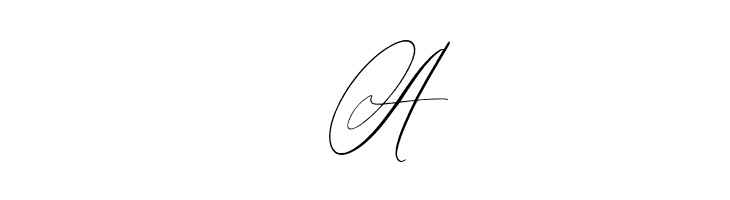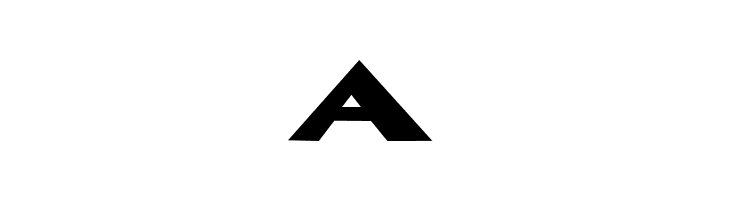
A bold, decorative font with intricate floral patterns on each character.
A playful, informal handwritten font with rounded, smooth letterforms.
A bold, playful handwritten font with rounded letterforms.
A playful, bold font with a bubbly, retro style.
A bold, playful font with thick, rounded strokes and a bubble-like appearance.
A bold, eclectic display typeface with diverse styles and modern appeal.
A fluid and elegant script font with a natural handwritten style.
Elegant script font with decorative flourishes.
Elegant handwritten script font.
Casual handwritten font with playful, informal style.
A playful serif font with crown embellishments and a mix of bold and cursive styles.
A playful, star-patterned decorative font with bold, rounded characters.
A modern, geometric font with crown motifs, ideal for decorative use.
A bold, textured font with irregular, jagged edges for a unique look.
A whimsical, bold font with playful, hand-drawn letterforms.
A playful, modern font with crown-like accents on uppercase letters.
A decorative font with pictographic symbols inspired by Aboriginal art.